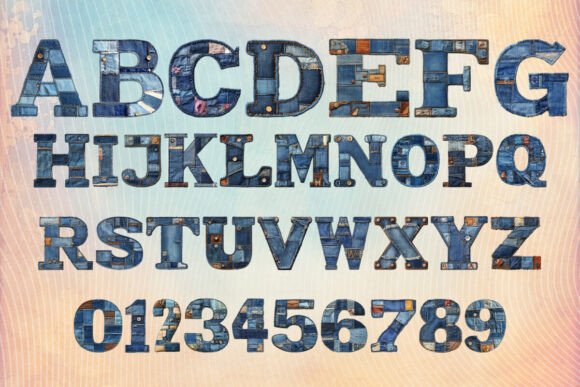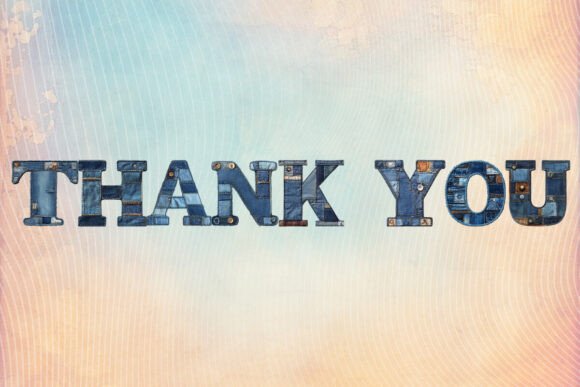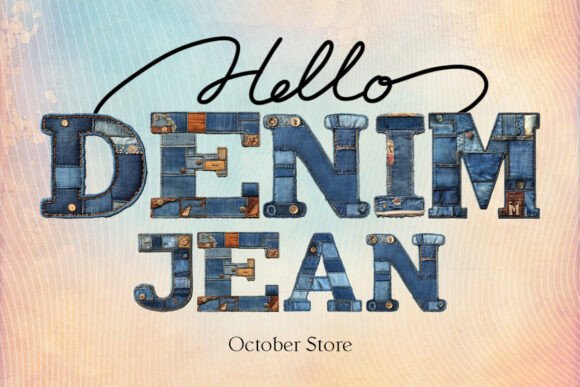
Discover the Denim Jean Alphabet Font: A Stylishly Rugged Addition to Your Design Belt
Are you a designer or crafter looking for a unique and versatile font to add a touch of authenticity and timeless charm to your projects? Look no further than the Denim Jean Alphabet Font! Handcrafted in the classic boysenberry blue hue of jeans, this font is a casual yet exciting addition to your design belt.
A True-to-Life Denim Texture
What sets the Denim Jean Alphabet Font apart from other fonts is its true-to-life denim texture. The font features a distressed, vintage look that evokes the nostalgic warmth of classic blue jeans. This texture adds a level of depth and character to your designs, making them stand out from the crowd.
36 Unique Characters for Creative Flexibility
The Denim Jean Alphabet Font includes 36 unique characters, comprising both numbers and letters. This range of characters gives you the creative flexibility to express yourself in a way that’s stylishly rugged, yet confidently refined. Whether you’re working on a branding project, a craft project, or a digital design, this font has got you covered.
The Denim Jean Alphabet Font is perfect for all sorts of projects, from rustic wedding invitations to DIY craft projects, and from fashion branding to digital designs. Its versatility and unique character make it an excellent choice for designers and crafters looking to add a touch of authenticity and charm to their work.
Key Features of the Denim Jean Alphabet Font
- Handcrafted in the classic boysenberry blue hue of jeans
- 36 unique characters, including numbers and letters
- True-to-life denim texture for a vintage, distressed look
- Casual yet exciting addition to your design belt
- Perfect for a variety of projects, from branding to craft projects
Why Choose the Denim Jean Alphabet Font?
There are many reasons why designers and crafters should choose the Denim Jean Alphabet Font for their projects. Here are just a few:
- Authenticity: The denim texture and classic blue hue give the font a genuine, authentic feel that’s perfect for designers and crafters looking to add a touch of realism to their work.
- Versatility: With 36 unique characters, the Denim Jean Alphabet Font is versatile enough to be used in a wide range of projects, from digital designs to craft projects.
- Timeless charm: The font’s vintage, distressed look gives it a timeless charm that’s sure to appeal to designers and crafters looking to add a touch of nostalgia to their work.
Tips for Using the Denim Jean Alphabet Font
Here are a few tips for getting the most out of the Denim Jean Alphabet Font:
- Experiment with different colors: While the classic blue hue of the font is iconic, you can experiment with different colors to give your designs a unique twist.
- Mix and match with other fonts: The Denim Jean Alphabet Font pairs well with other fonts, so don’t be afraid to mix and match to create a unique look.
- Use it for headlines and titles: The font’s bold, distressed look makes it perfect for headlines and titles, where you want to grab the reader’s attention.
The Denim Jean Alphabet Font is a stylishly rugged addition to any design belt. With its true-to-life denim texture, 36 unique characters, and timeless charm, it’s the perfect choice for designers and crafters looking to add a touch of authenticity and nostalgia to their work. Whether you’re working on a branding project, a craft project, or a digital design, this font is sure to impress.